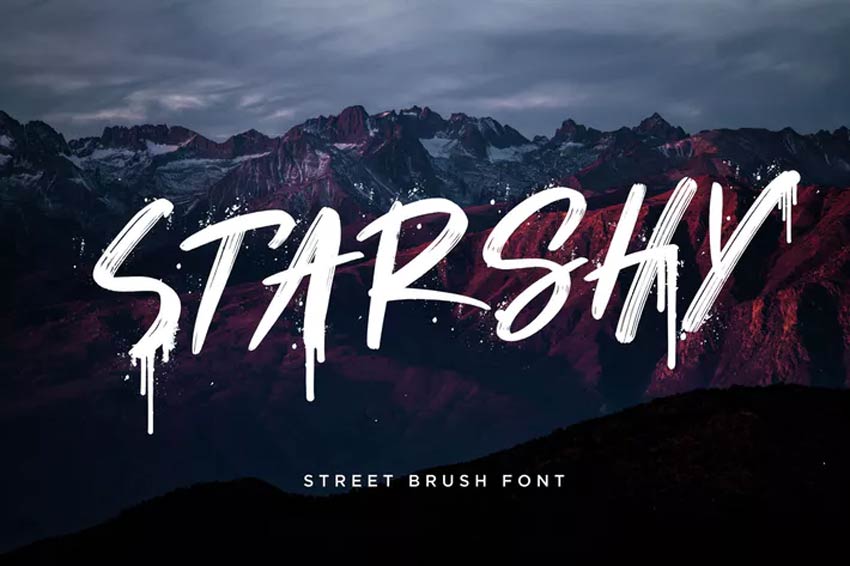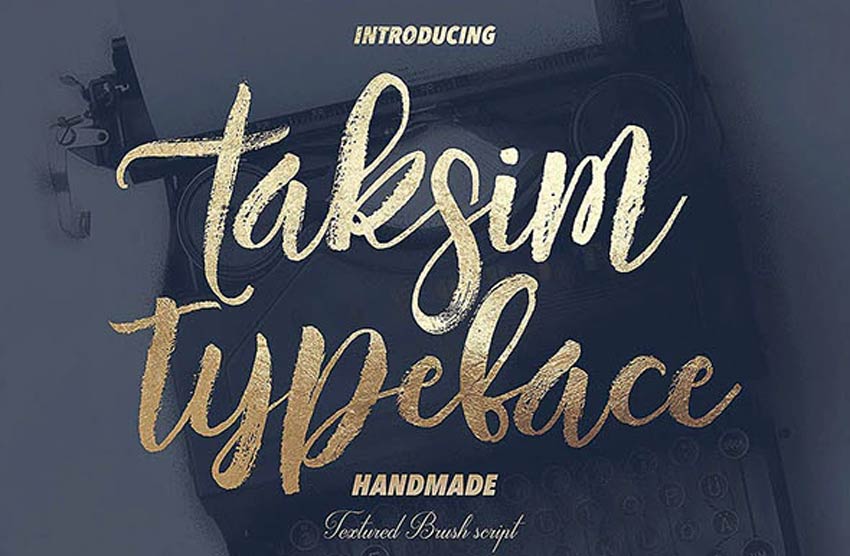
Best Font For Painting
Best Font For Painting. Black rockets paint brush font (otf, ttf) black rockets paint brush font is another terrific font that you can use when you want to replicate a handcrafted dry brush feel. The best retro sign painter fonts.
3 of the best fonts for printing: Designed by the monotype foundry’s. The best retro sign painter fonts.
1001 free fonts offers the best selection of paint fonts for windows and macintosh. Mind the gap is a handmade spray paint fonts set full of stylistic alts that will bring an industrial or military feel to any project. 14 font styles from $14.00.
Featuring A Great Number Of Spray Paint Details, Autobahn Is A Powerful Display Stencil Typeface That Is Sure To Turn Heads.
Rivina brush +30 watercolor textures. Designed by the monotype foundry’s. Black rockets paint brush font (otf, ttf) black rockets paint brush font is another terrific font that you can use when you want to replicate a handcrafted dry brush feel.
Century Gothic Is Neat And Easy To Read,.
It's painted and not a font. Both of the answers already given list some great choices of highly readable fonts that are well drawn, so i'll cover a less classic approach: They make the perfect addition to any wedding invitation or a compelling header for your.
Opulent solid font, which gives a smooth edge to the text, reminiscent of a more liquid paint effect. Opulent svg font that allows you to render your lettering in lush watercolour brush strokes. The best retro sign painter fonts.
This Font Comes With A Bold And Unique Look That Makes It Ideal For Designing Posters For Movies, Rock Music Events, And Many Others.
That's the handwriting of magritte. Uppercase and lowercase letters in this font can be a good combination for art brands. The font is designed with inspiration from retro video games.